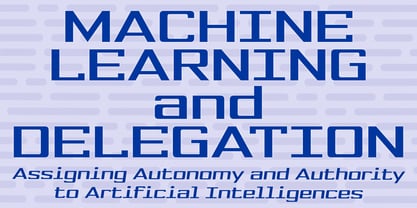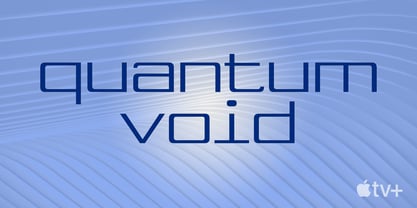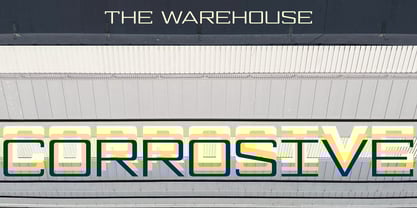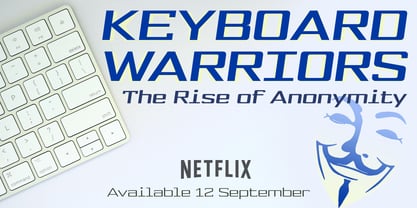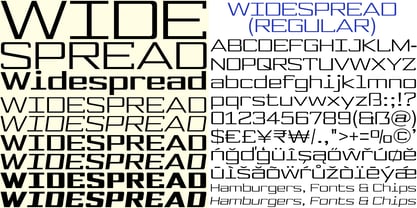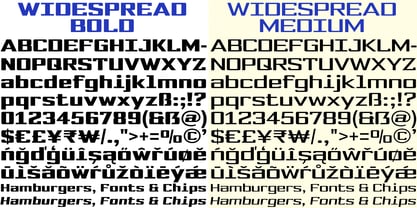
Widespread
by K-Type
The Widespread Font Family was designed by Keith Bates and published by K-Type. Widespread contains 6 styles and family package options.
Widespread is an extended square sans with roots in monospaced typewriter styles and early computer fonts, absorbing the functional aesthetic but breaking the grid wherever appropriate. Each weight has identical spacing and kerning, and the width of each character is uniform across the whole family, so weights can be overlapped and blended experimentally for effect.
With its machine-age persona, Widespread conveys efficiency, innovation and authority. If saving space isn't an issue, stretch out and spread your message with this expansive contemporary typeface.
Widespread